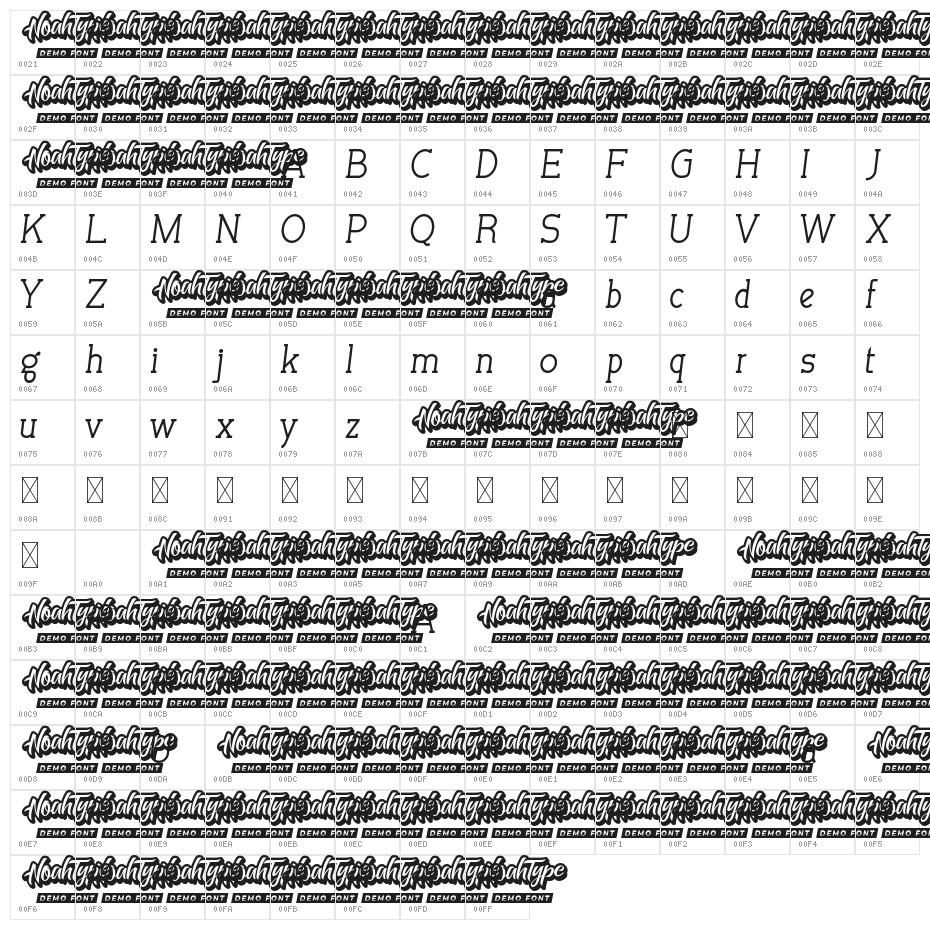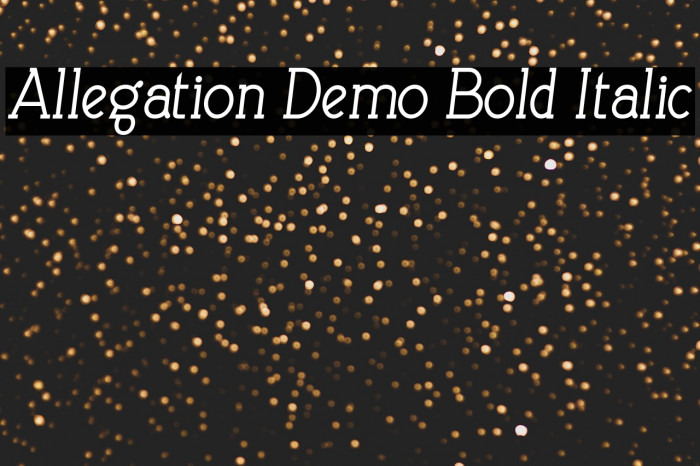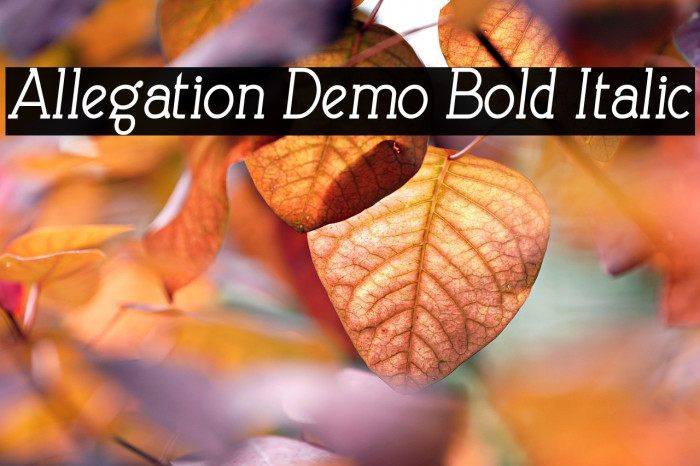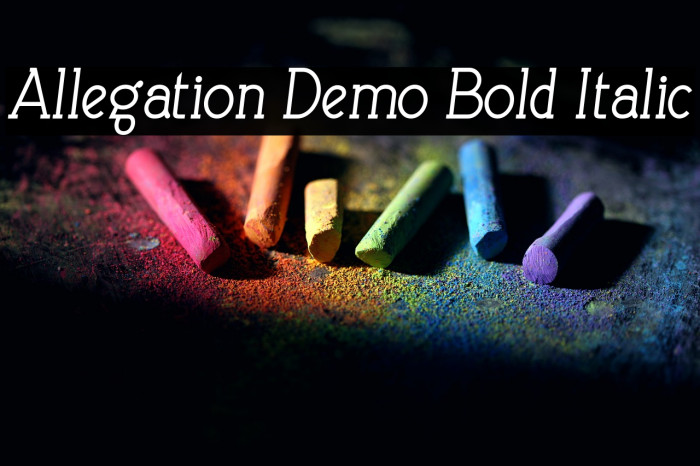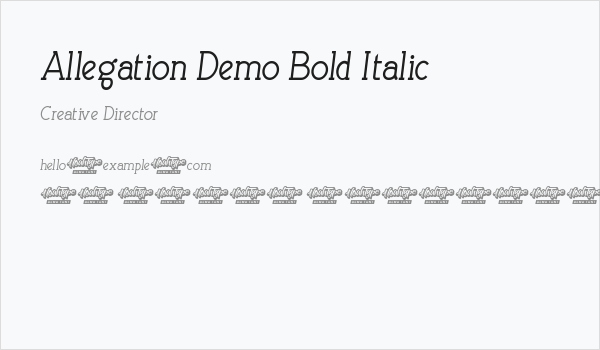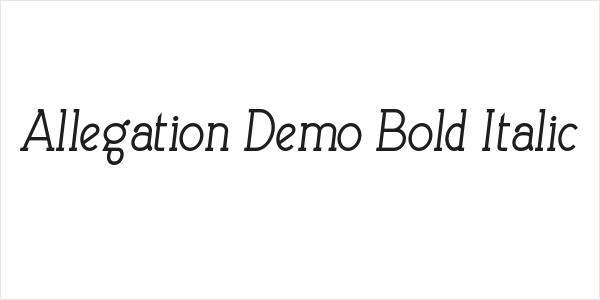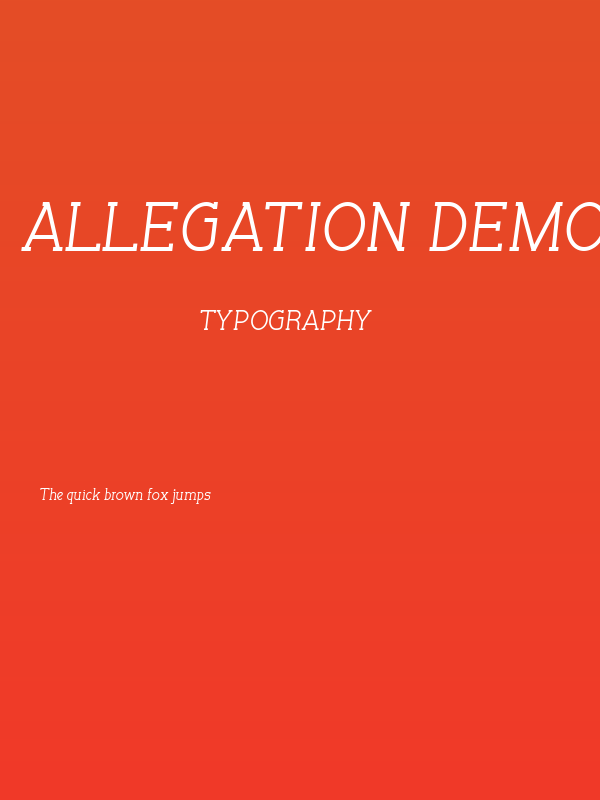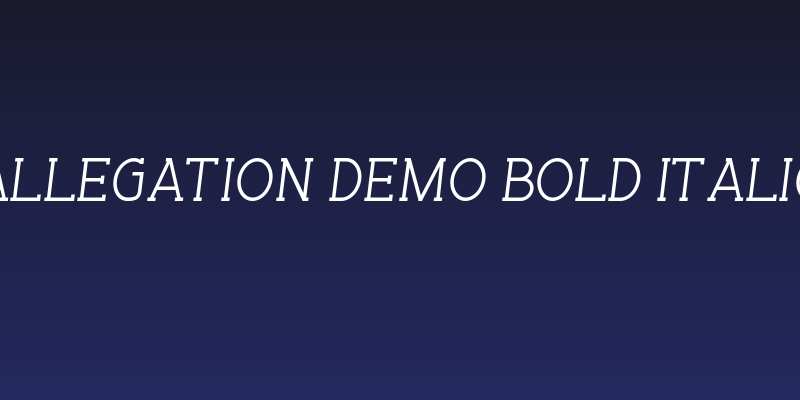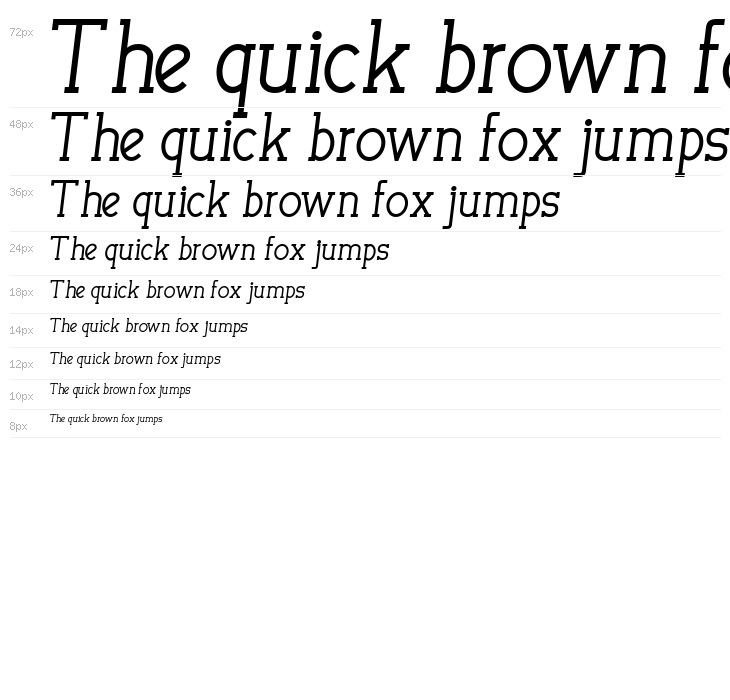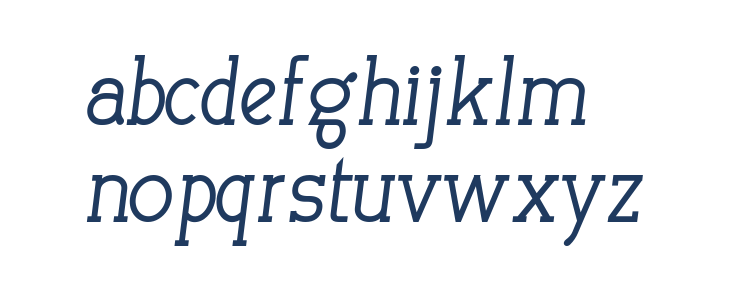
Allegation Demo Bold Italic Font
Allegation Demo Bold Italic Description
This font exhibits a bold and italicized style, characterized by its strong presence and dynamic slant. The uppercase letters are tall and commanding, while the lowercase letters maintain a consistent flow with a slight curvature that adds elegance. The numerals are clear and well-defined, ensuring readability. Special characters are designed with the same attention to detail, providing a cohesive look across all glyphs. The overall design is modern yet retains a classic touch, making it versatile for various applications.